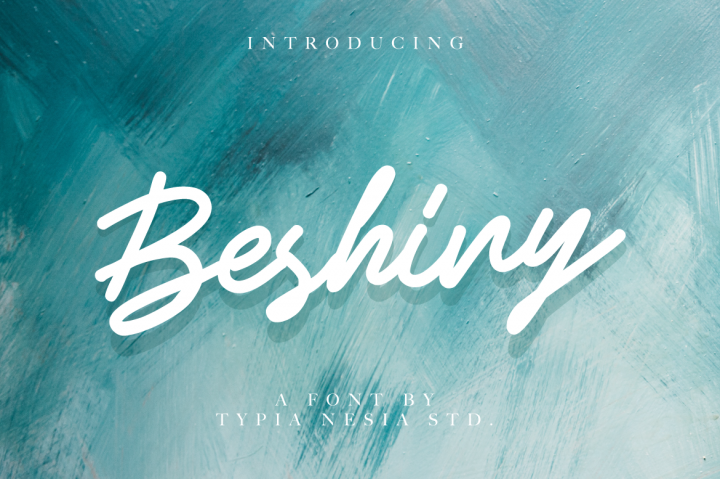
Beshiny Script
Beshiny Script Font
Beshiny is a Handwritten Script Font. Beshiny font is suitable for any design needs, modern invitation design, branding, blog design, modern advertising design, invitation, Art Quote, Home decor, Book/Cover Title, Invitation, special events, birthday, custom mug, pillow, t-shirts, any calligraphy style needs and more.